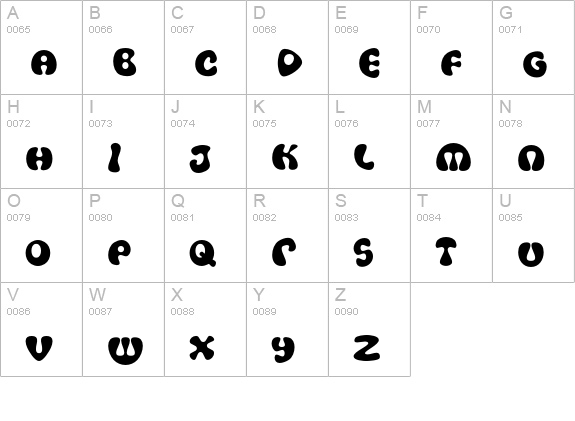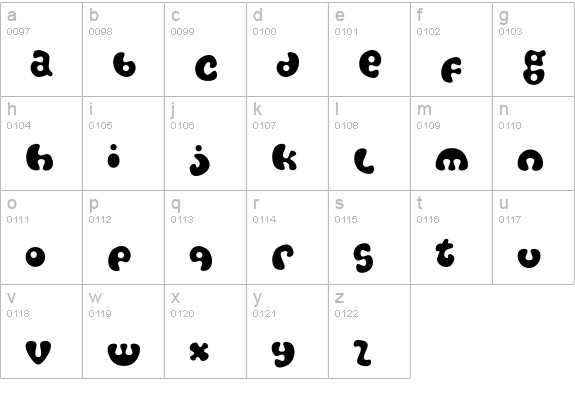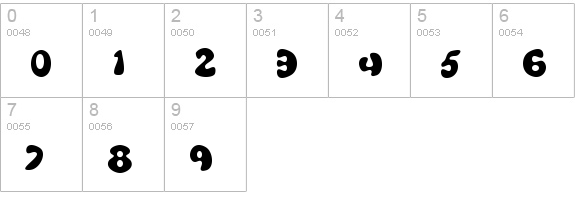
Amoeba-Regular Font Details
Amoeba-Regular is the standard, neutral variant in the Amoeba typeface family \xE2\x80\x94 well suited to general body text, paragraphs, and standard typographic work.
Amoeba-Regular is a versatile and modern font that exudes creativity and personality. Its unique and fluid design makes it perfect for a wide range of projects, from branding to web design. With its clean lines and playful curves, Amoeba-Regular adds a touch of whimsy to any text. Whether you're designing a logo, creating a poster, or crafting a website, this font will make your work stand out. Best of all, Amoeba-Regular is available for free download at FontsMarket.com. Simply visit the website and start using this amazing font in your projects today. Don't miss out on the opportunity to add a touch of originality to your designs with Amoeba-Regular.